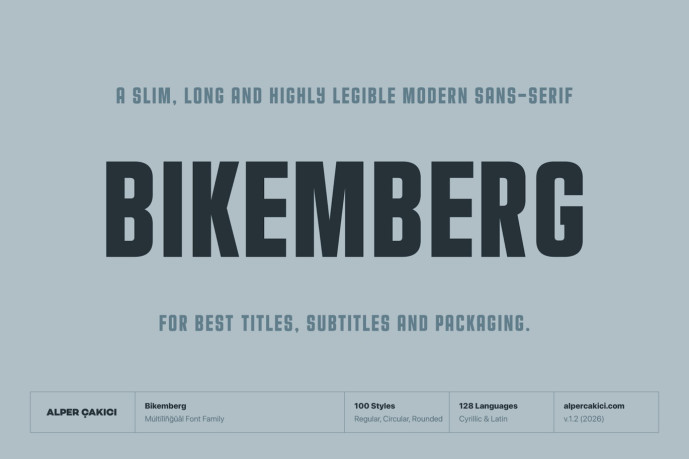
Bikemberg is a bold, high-impact display typeface designed for titles and headers that demand attention. Built with a strong, condensed structure, it delivers a modern industrial feel while remaining highly versatile across creative applications. The family includes an extensive range of styles, from clean and regular cuts to expressive textures such as Aged, Brush, Chalk, Grainy, Gritty, Rusty, Sketchy, and more. These variations allow designers to easily switch between polished and distressed looks while maintaining a consistent visual identity.
Bikemberg also features expanded subfamilies including Circular and Rounded styles, offering softer or more geometric alternatives without losing the original strength of the design. Each style is paired with matching italics, providing flexibility for dynamic typography.
Supporting both Latin and Cyrillic scripts, Bikemberg covers a wide range of languages, making it suitable for international branding and editorial use.